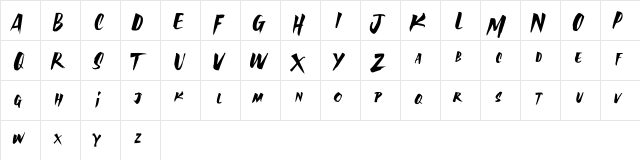
AvailaBrush Regular
| Foundry | Typia Nesia Studio |
| Designer | Dimas Aditya |
Design Context for AvailaBrush Typeface
AvailaBrush flows with the natural rhythm of handwritten lettering, making it ideal for designs that call for warmth and personal expression.
Font Pairing: Combine AvailaBrush with a simple geometric sans for maximum contrast — the tension between flowing curves and clean structure is a classic typographic pairing.
Pro Tip: Use AvailaBrush for short runs of text — names, titles, or taglines. Extended body copy in script faces tires the eye quickly.